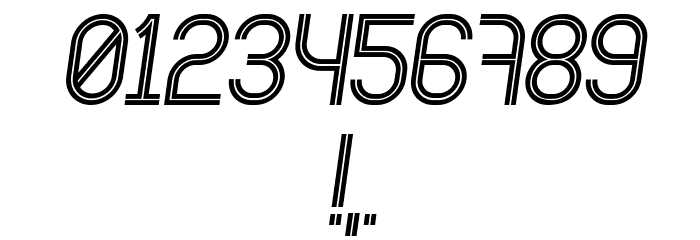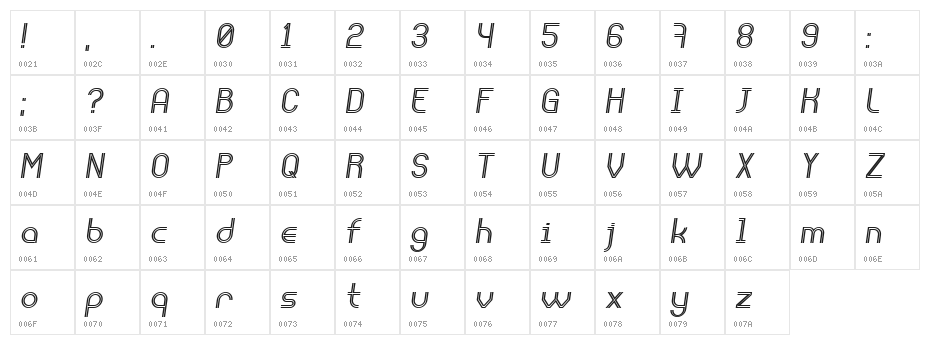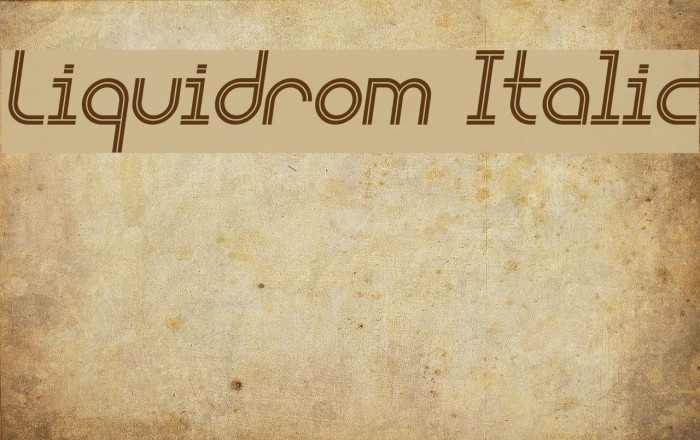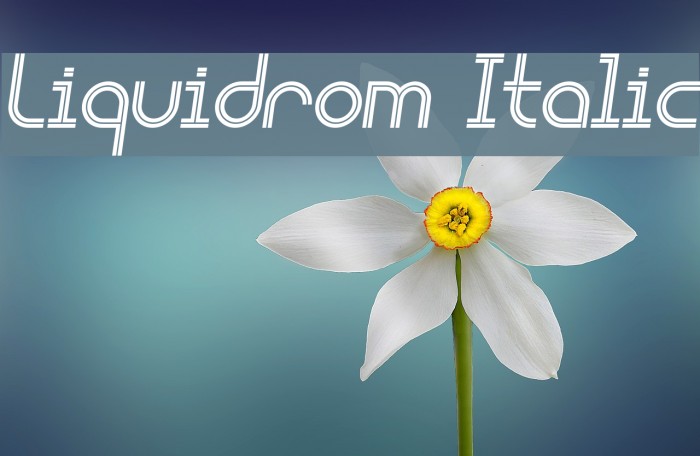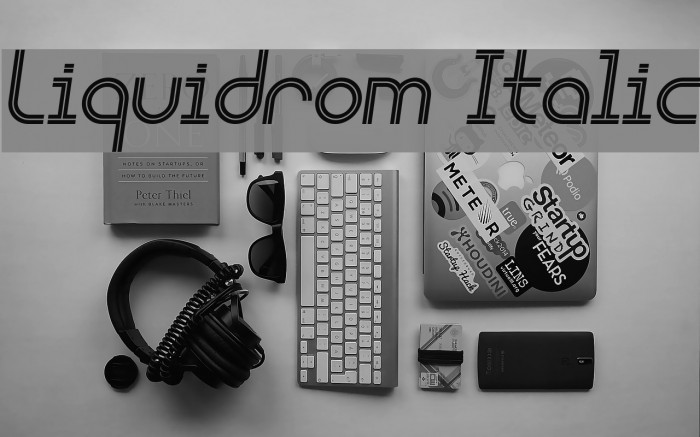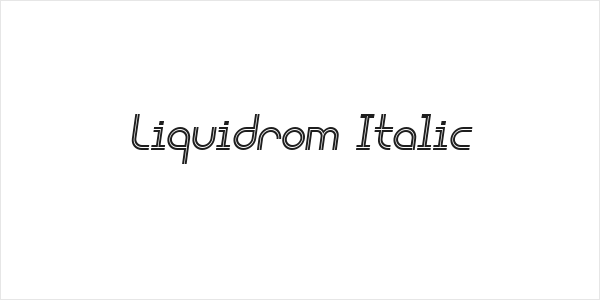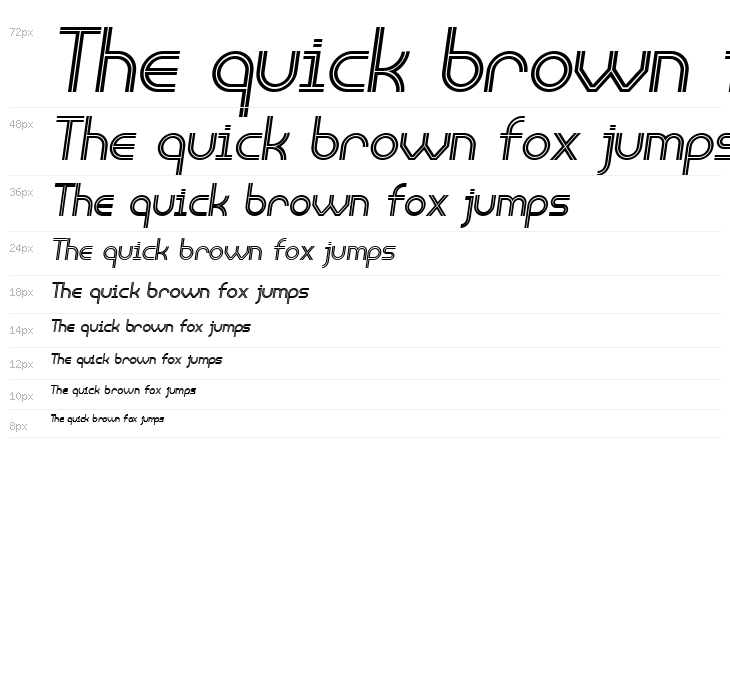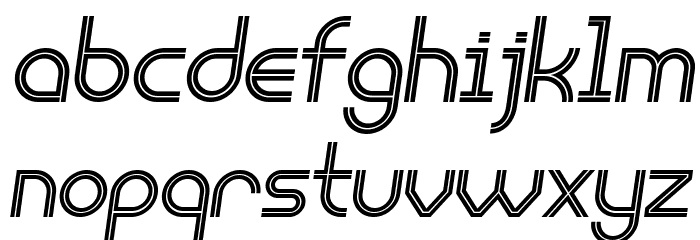
Liquidrom Italic Font
Liquidrom Italic Description
This font features a modern and sleek design with a distinctive italic style. The characters are outlined, giving them a hollow appearance that adds a unique visual interest. The uppercase and lowercase letters maintain a consistent style, with smooth curves and sharp angles that create a futuristic look. The numbers and special characters are designed to match the overall aesthetic, ensuring a cohesive appearance across all text. The font's clean lines and geometric shapes make it suitable for contemporary design projects.
| Proposed Projects | Ideal for branding, logos, posters, and digital media where a modern and distinctive look is desired. |